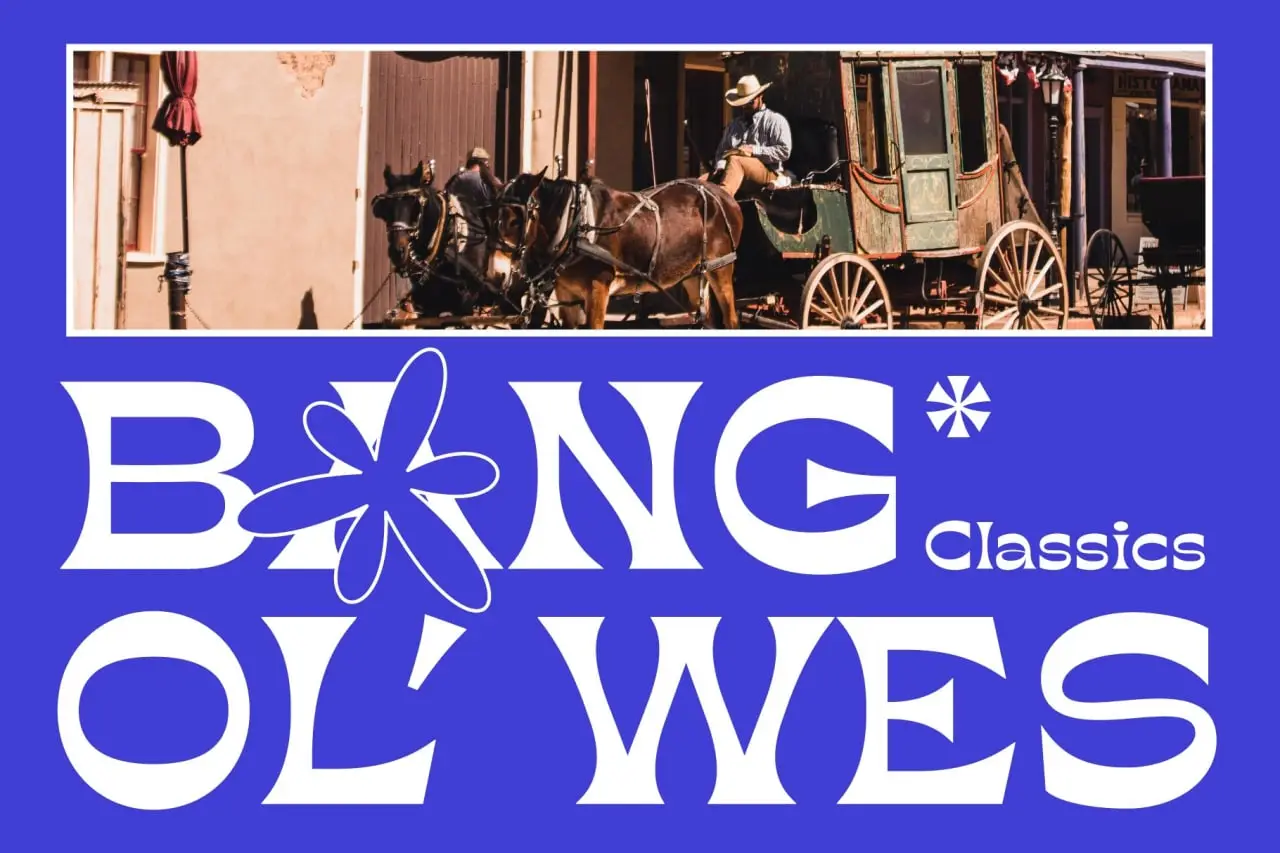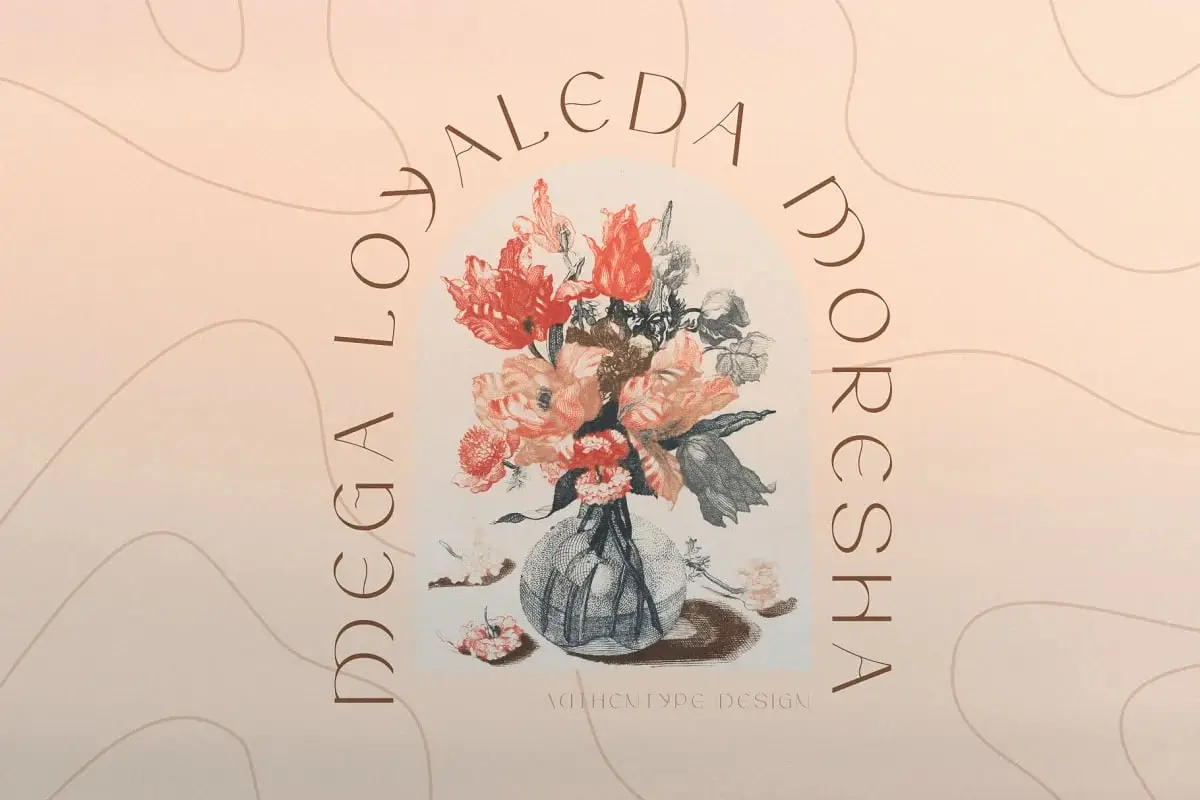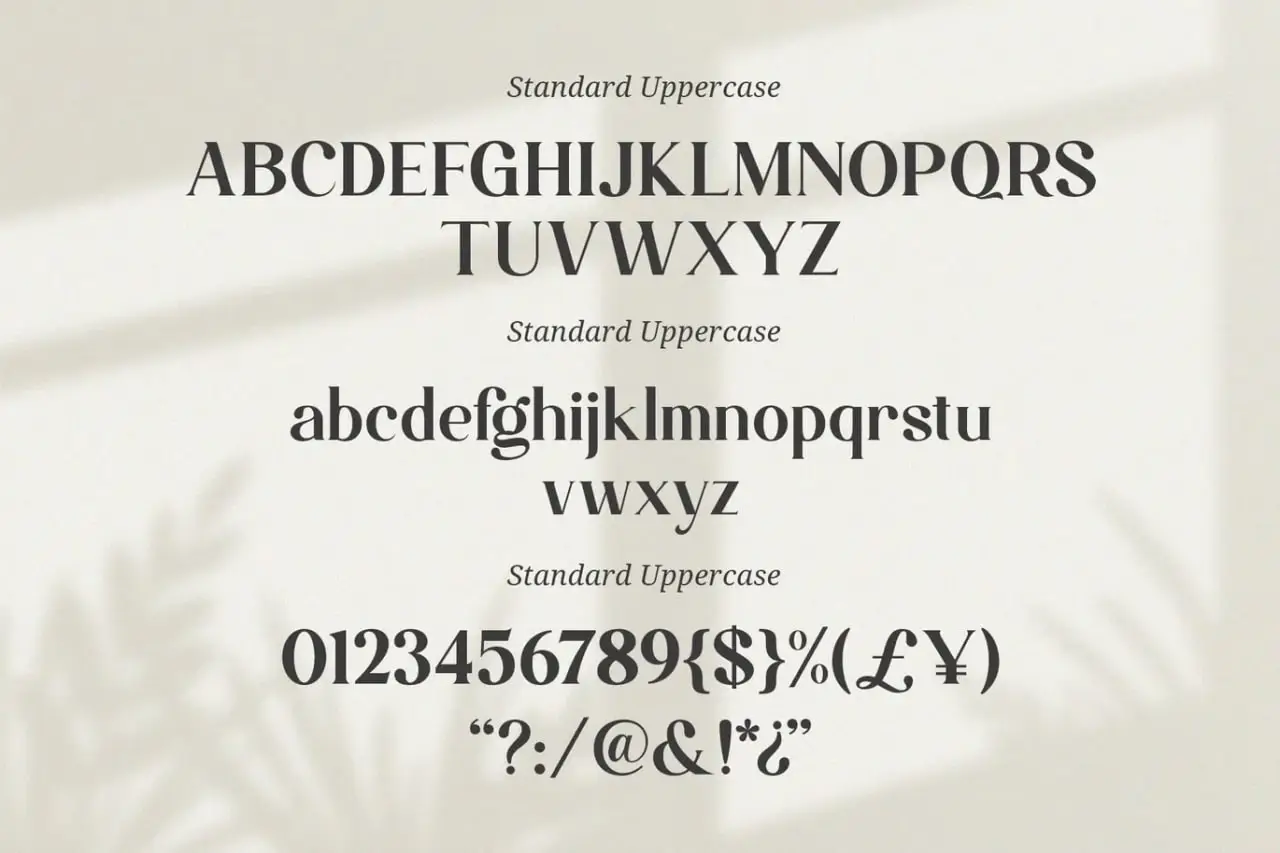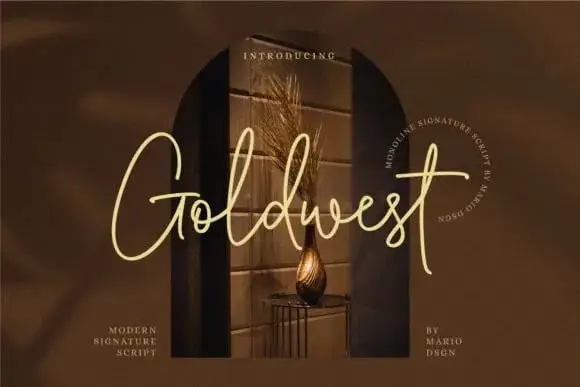
Hey there, creative soul! 🎨 Are you ready to breathe new life into your design projects? We’ve scoured the digital vaults and pulled together an absolutely stellar collection of 20 fresh fonts and design assets that are perfect for everything from snazzy branding to jaw-dropping web layouts. Grab your favorite beverage, get comfy, and let’s dive into this treasure trove of typographic goodness! 🚀
Why Use These Design Assets?
Let’s be real—your creative projects deserve the best tools to shine. Whether you’re crafting a killer logo, designing a sleek website, or putting together print materials that wow, having the right font or digital asset can make all the difference. This collection offers versatility, modern aesthetics, and top-notch quality, ensuring your work stands out in a crowded digital world. Plus, they’re super easy to customize, so you can make them truly yours! ✨
Top 20 Font & Design Asset Picks
Kilby Font
Kick off your design journey with the Kilby Font! 🎉 This modern typeface features clean lines and multiple weights, making it a dream for branding, logos, and web projects. You’ll love how effortlessly it blends contemporary style with everyday usability!
Marcovaldo Font
Meet the Marcovaldo Font—a beauty that perfectly balances elegance with a modern twist! 🖋️ With its clean letterforms and multiple weights, it’s ideal for both print and digital projects. Your designs will thank you for the upgrade!
Ilya Zakharov Pomidor Free Display Font
Who doesn’t love a free gem? 💎 The Ilya Zakharov Pomidor Free Display Font is playful, eye-catching, and oh-so-modern. Perfect for making your headlines pop, this typeface comes with multiple weights to keep things versatile!
Jinsamat Sima-Neopass
Add a fresh perspective to your creative projects with the Jinsamat Sima-Neopass! 🌟 These high-quality digital design elements are easy to customize and work with your favorite design software. Get ready to experiment and create something unique!
Major Font
Make a big impression with the Major Font! 💥 This versatile typeface offers a modern aesthetic with a range of weights, available in OTF, TTF, and WOFF formats. It’s your go-to for any project that needs a clean, professional touch.
Herlyon Font
Add a unique flair to your work with the Herlyon Font! 💫 This stylish typeface features elegant curves and clean lines, plus multiple weights for ultimate flexibility. Perfect for anything from branding to web design—it’s a total charmer!
Mario Dsgn-Goldwest Font
Bring a touch of sophistication with the Mario Dsgn-Goldwest Font! 🌟 This striking typeface mixes modern and classic elements for a truly elegant look. Whether for logos or print, its multiple weights have you covered.
Magistic Foundation Font
Elevate your projects with the Magistic Foundation Font! 🏆 Its elegant lines and modern aesthetic are a match made in design heaven. With various weights and OTF/TTF formats, this font is built for versatility and style.
La Obrige Serif Typeface
If you love classic elegance, the La Obrige Serif Typeface is your new best friend! 📜 With its beautifully crafted serif design and multiple weights, it’s ideal for branding, editorial design, and more. Readability meets sophistication!
Kupolė
Kupolė brings a unique touch to your digital toolkit! 🌈 This collection of high-resolution assets offers a mix of styles and themes, all easy to customize. Perfect for adding that extra spark to personal or commercial projects!
Kish Font
The Kish Font is modern, versatile, and oh-so-elegant! 🎭 With its clean lines and distinctive character, it’s a top pick for branding, logos, and beyond. Plus, it’s packed with special characters for all your creative needs!
Keratine
Keratine is an essential digital design asset that’s as versatile as it is high-quality! 🔥 Whether for print or digital use, this collection of elements will elevate your visual storytelling. Easy to customize and ready to inspire!
Keina By Máté Dorottya
Add a touch of elegance with Keina By Máté Dorottya! 🌸 This high-quality digital asset is perfect for a wide range of applications, from branding to web design. Its versatile design makes it a must-have for your creative toolkit!
Koshy Luxury Sans Serif — By Authentype
Indulge in luxury with the Koshy Sans Serif font family! 🥂 Crafted by Authentype, its clean lines and elegant curves make it perfect for high-end branding, logos, and more. You deserve that premium touch!
Kulokale-Geakosa Sans Serif Font
Modern and versatile—the Kulokale-Geakosa Sans Serif Font is here to level up your designs! 🚀 With its clear legibility and multiple weights, it’s great for digital and print projects alike. Clean, contemporary, and totally reliable!
Grillitype-Gt Zirkon
Get geometric with Grillitype-Gt Zirkon! 🔷 This contemporary sans-serif combines elegance with readability, featuring multiple weights. It’s a modern must-have for any creative who loves clean, structured design.